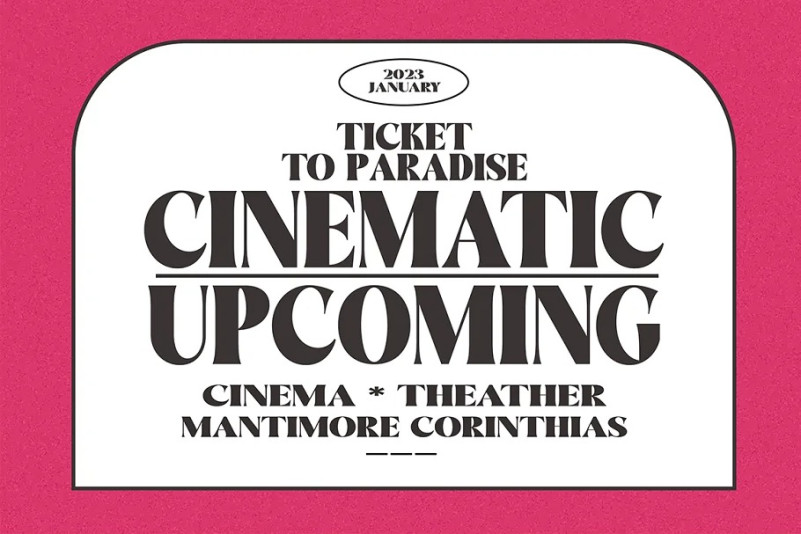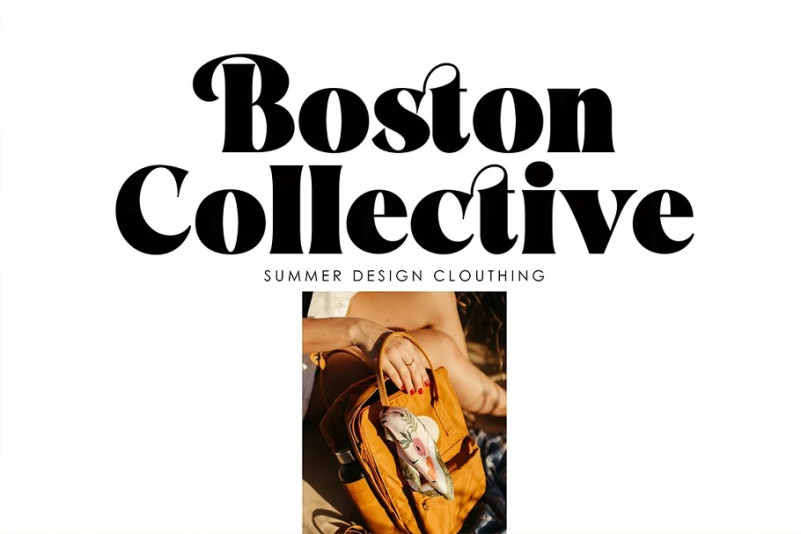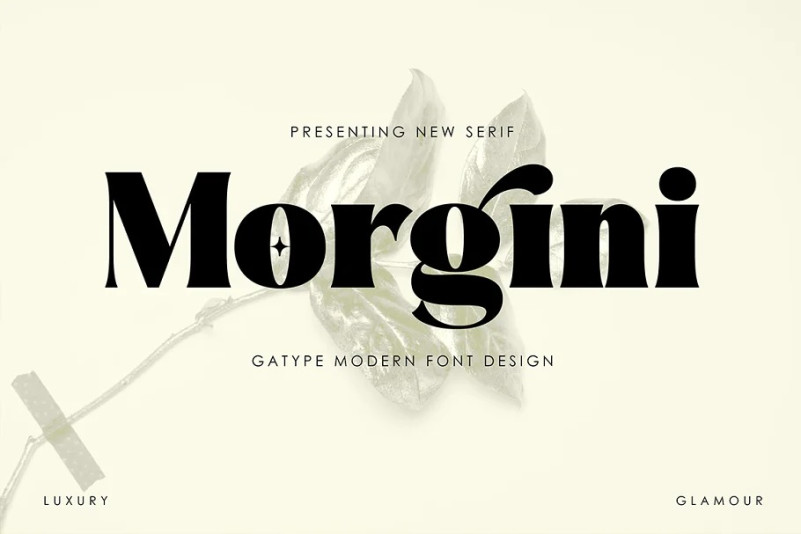
Morgini Font
Morgini Serif Font is a bold classic serif with more hand-illustrated alternatives, and preserved textures, for a unique, yet modern vintage feel. It appears regularly and boldly with lower and uppercase letters, numbers, punctuation marks plus multilingual letters. A must have for every modern graphic designer now!